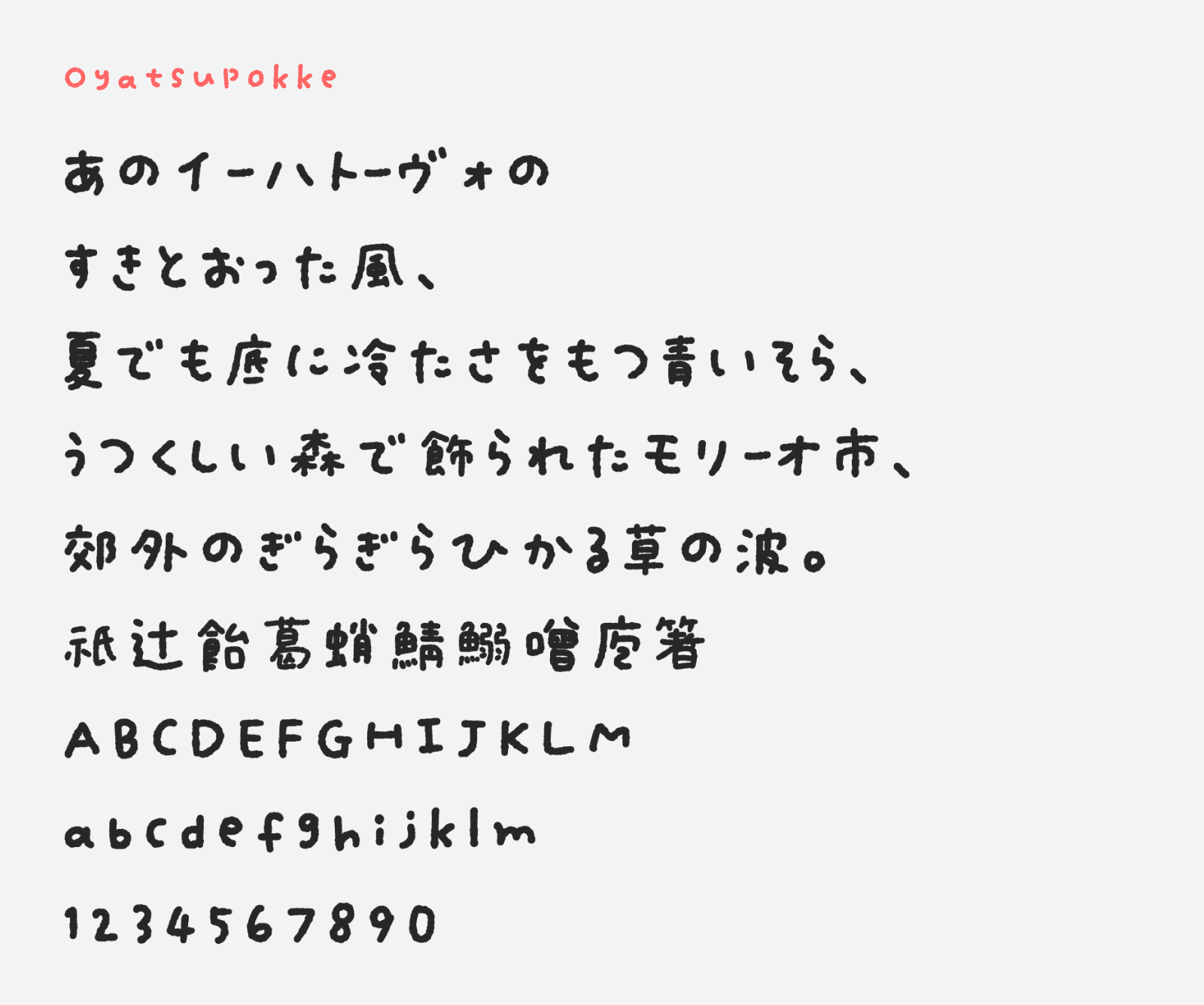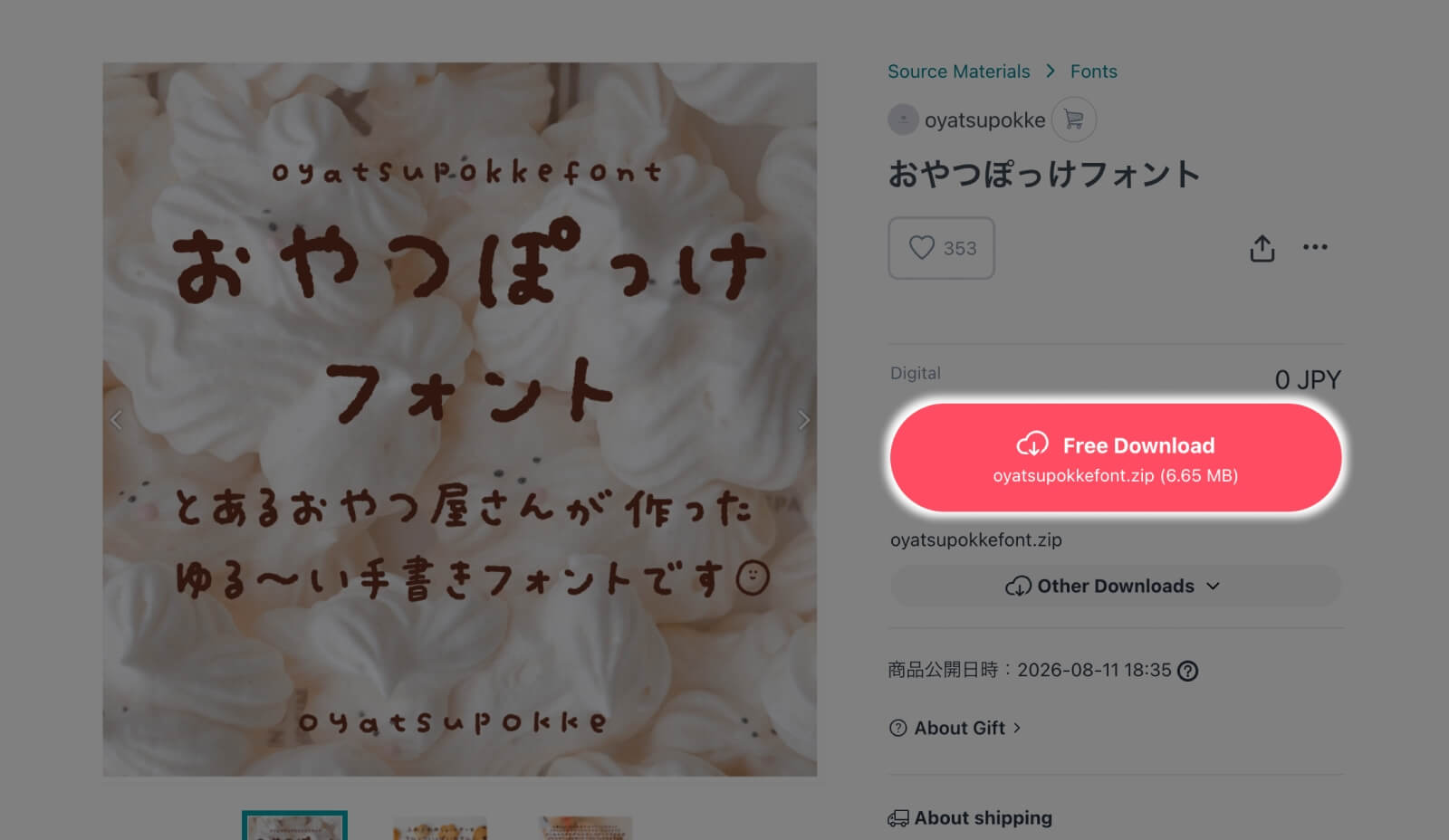
Oyatsupokke Font
Oyatsupokke Font (おやつぽっけフォント) is a free hand-drawn Japanese typeface created by the shop owner behind Oyatsupokke, a confectionery business in Aichi Prefecture. Every one of its characters was drawn by hand, and the digital version keeps that irregularity intact rather than smoothing it out, giving the typeface a rounded, slightly wobbly look with inconsistent stroke widths throughout.
The font design is unpolished but brews personal quality. It reads as warm and approachable rather than professional, which makes it a natural fit for POP signage, menus, flyers, business cards, product packaging, and labels, as well as social media graphics, video captions, and other advertising or print materials where a handmade touch helps a message feel friendlier. For character support wise, it has the usual hiragana and katakana, with 3000+ kanji that pretty much covered JIS Level 1 standard kanji characters. You can download this font for free and be used on commercial projects
- Hiragana and Katakana
- Kanji (3000+ characters, supporting almost all JIS Level 1 characters)
- Alphanumerics
- Symbols and Punctuations